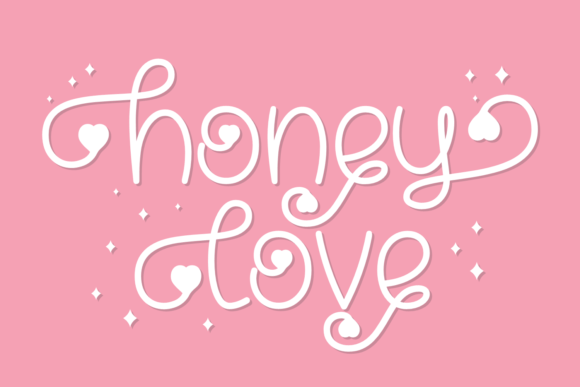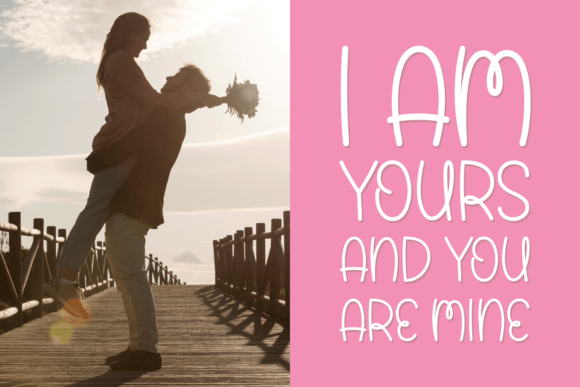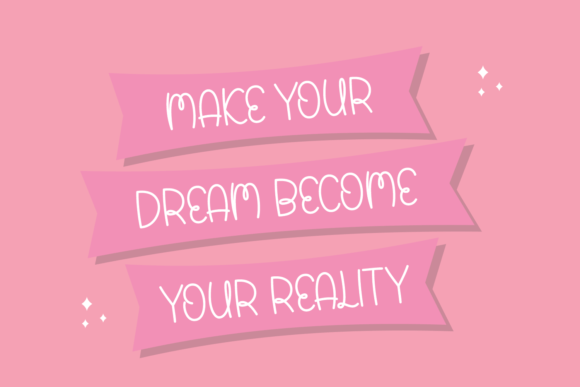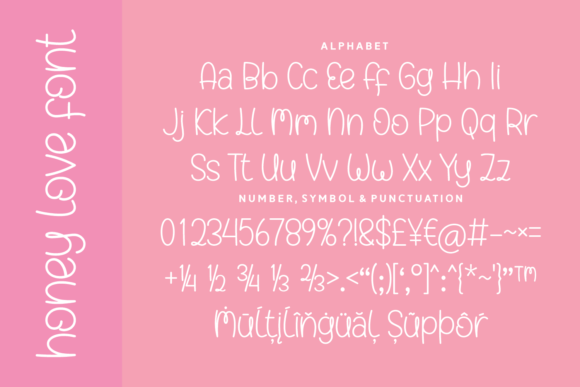
The Sweet Allure of Handwritten Design
Have you ever found yourself doodling in the margins of a notebook, trying to capture the perfect script for a handwritten font? For designers, the quest for the perfect handwritten font is a never-ending journey, and Honey Love Font is a charming new addition to the mix.
Honey Love Font is a delightful, handwritten font that embodies the warmth and playfulness of a sunny day. Designed to evoke feelings of sweetness and joy, this font is perfect for designs that need to convey a sense of approachability and friendliness. With its flowing curves and inviting lines, Honey Love Font is a valuable tool for designers looking to add a touch of whimsy to their work.
Whether you’re working on a small text or a large headline, Honey Love Font is a versatile choice that’s sure to bring a smile to your audience’s faces.
Honey Love Font Key Features
- Font Family: Honey Love, a beautiful and elegant script font
- Unique Characteristics: Features a unique blend of modern and vintage elements, with intricate details and flowing connections between letters
Honey Love Font Review
I recently had the chance to work with the Honey Love Font, and I must say it’s a unique addition to any design project. ✨ The font’s playful, handwritten feel makes it perfect for creating eye-catching headlines or captions. Its whimsical nature adds a touch of personality to any text, which I appreciate.
- ✨ The font’s versatility – it can be used for a variety of projects, from blog posts to social media graphics.
- ✨ The high level of customization – the font can be easily adjusted to fit any design style or tone.
- ✨ The font’s legibility – despite its handwritten feel, the text is still easy to read.
- ⚠️ The font may not be suitable for body text – due to its handwritten nature, it can be difficult to read in large blocks of text.
- ⚠️ The font may not be compatible with all devices – some users may experience issues with the font’s rendering on certain devices or platforms.
Overall, I’m impressed with the Honey Love Font. While it may not be perfect for every project, it’s a great addition to any designer’s toolkit. With its unique feel and high level of customization, it’s a great choice for designers looking to add some personality to their work.
The Honey Love font is ideal for use in invitations, greeting cards, and social media graphics. It’s also great for adding a touch of whimsy to presentations and documents. To get the most out of the font, use it sparingly and pair it with bold, contrasting colors to create a visually appealing design.
The Honey Love Font is a popular, handwritten script font. However, designers may look for alternatives that offer unique features or a different style. Here are a few options:
Great Vibes is a beautiful, modern script font with a relaxed feel. It’s perfect for designing invitations, posters, or any project that needs a touch of elegance. Unlike Honey Love Font, Great Vibes has a more refined and polished look, making it suitable for formal events or high-end branding.
Aleo Font
Aleo is a modern, elegant script font with a soft, fluid feel. It’s ideal for designing wedding invitations, menus, or any project that needs a sophisticated touch. Compared to Honey Love Font, Aleo has a more refined and precise look, making it perfect for formal events or luxury branding.